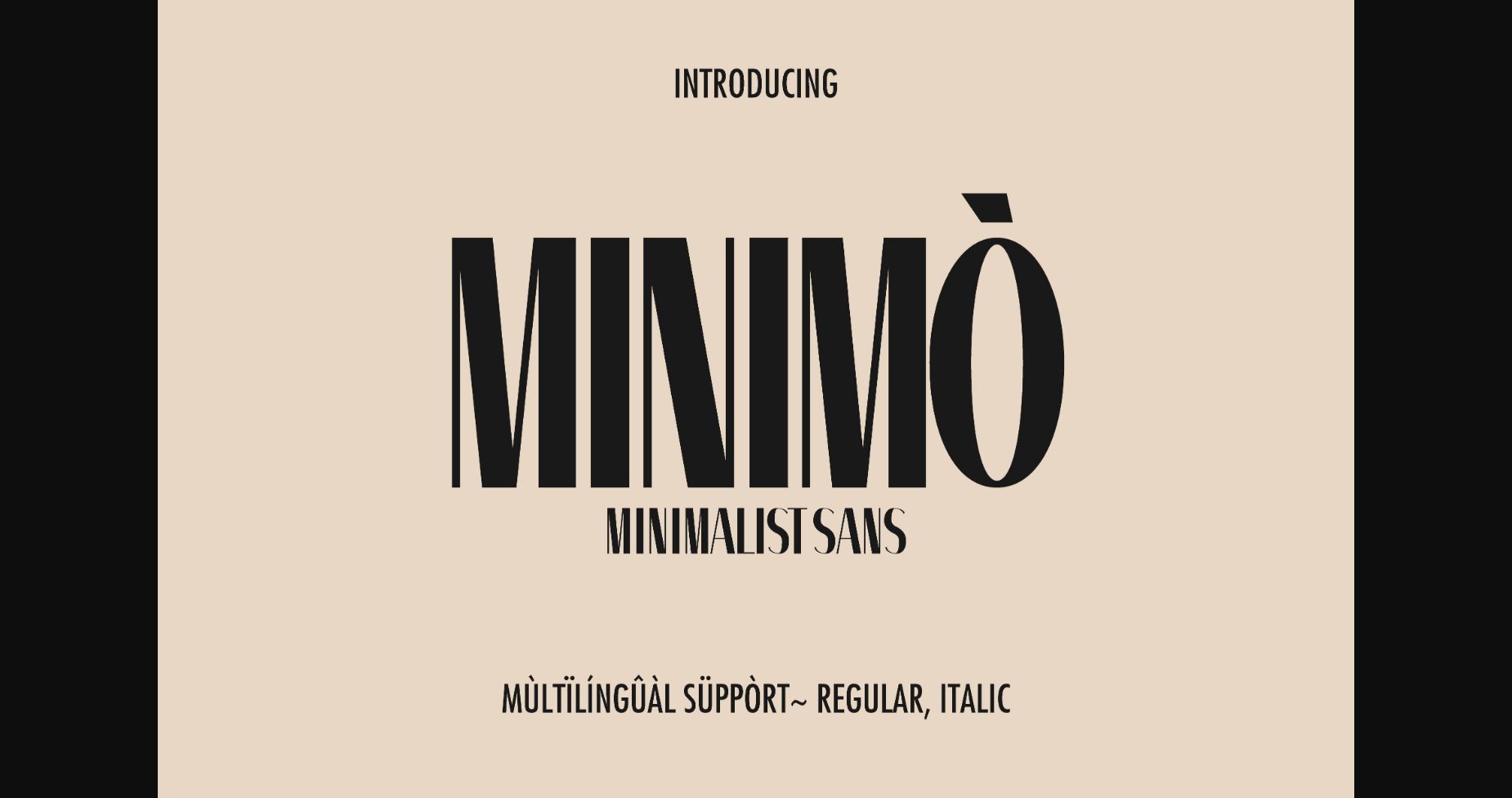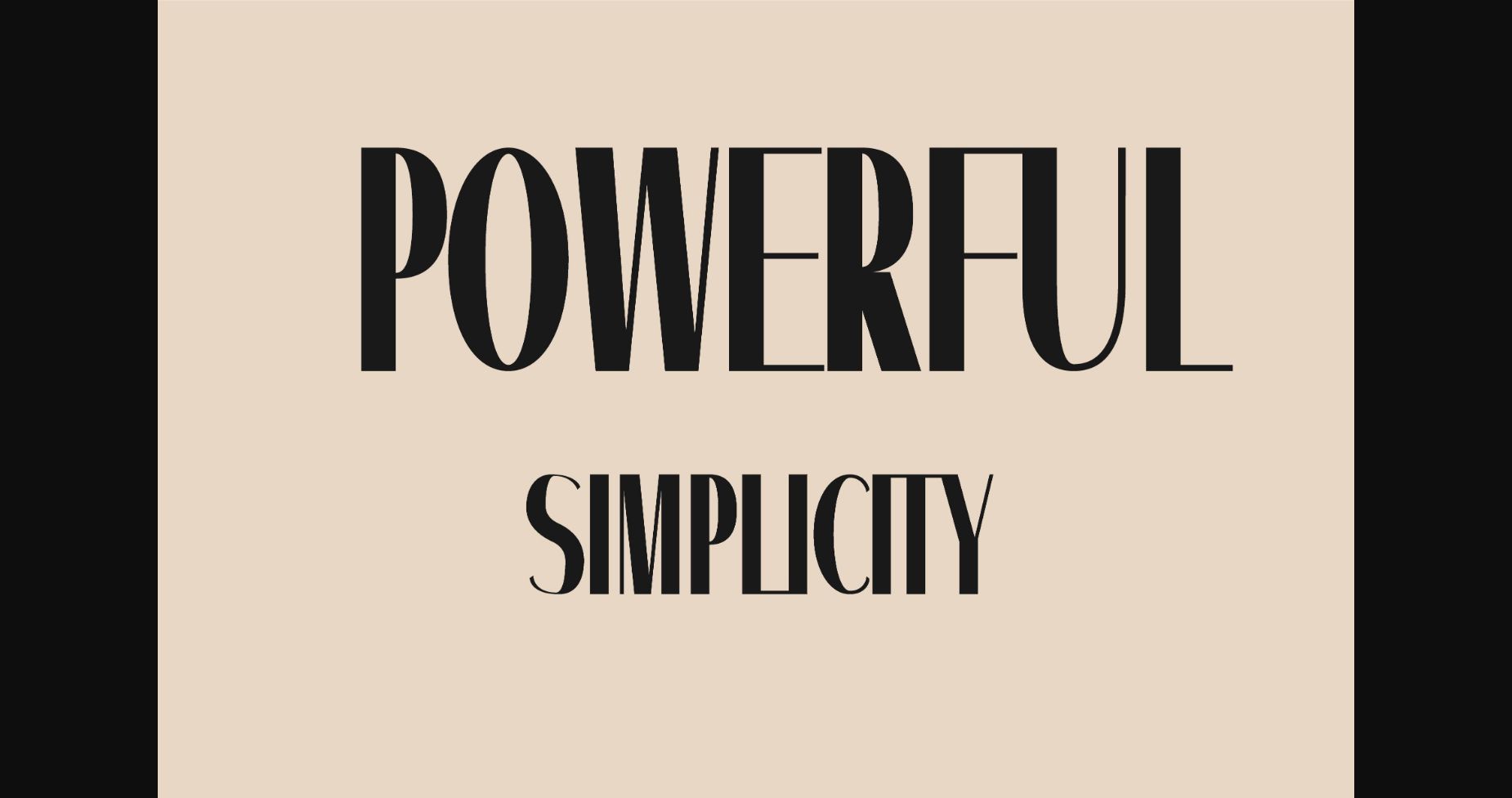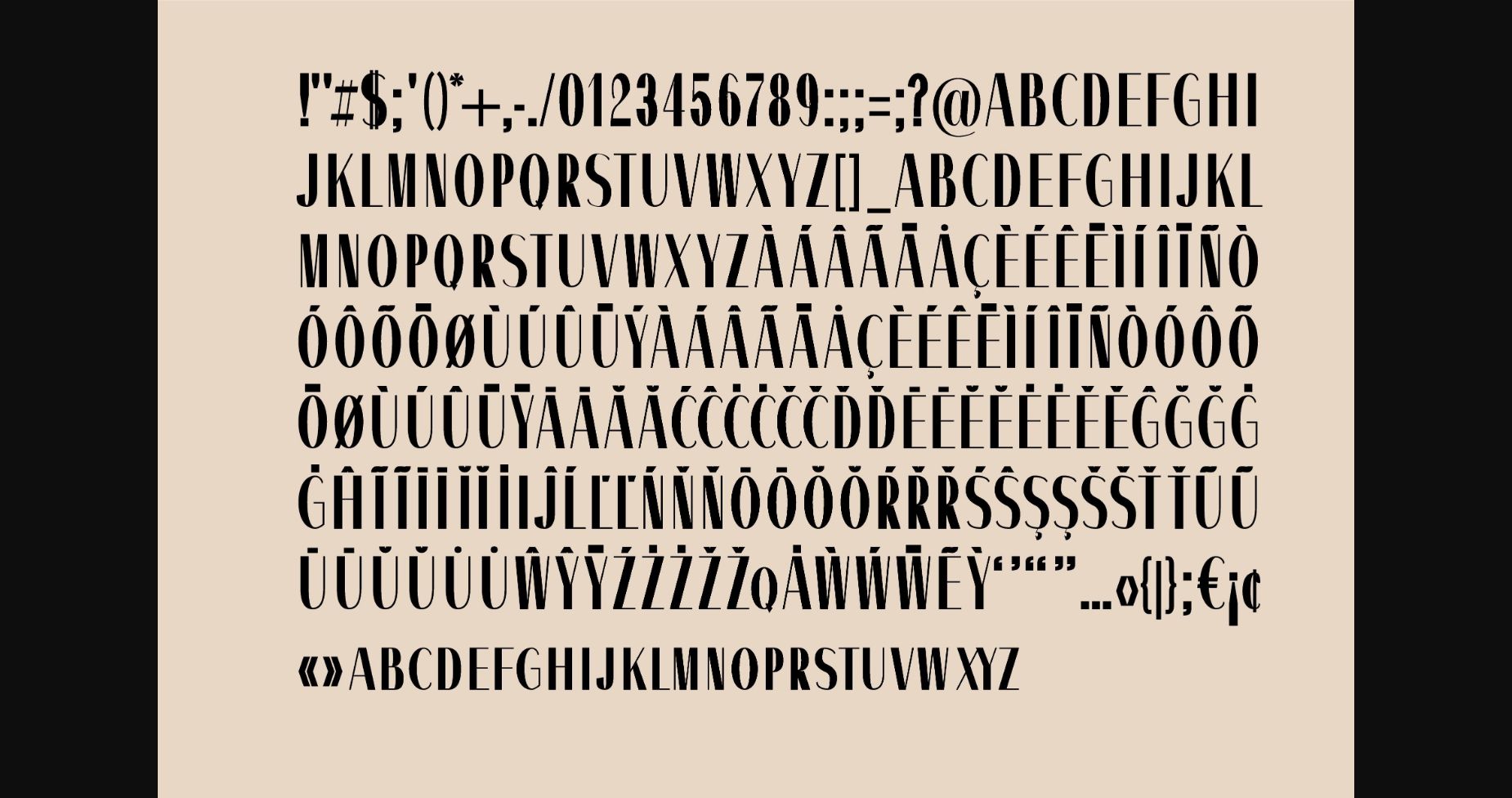
HomeSans Serif FontsMinimò Font Sans Serif Fonts Minimò Font FacebookXPinterestWhatsApp 1 of 5 ... Minimò Font Poster 2... Minimò Font Poster 3... Minimò Font Poster 4... Minimò Font Poster 5... About Minimò Font Minimò is a minimalist and simple sans serif font. Fall in love with its incredibly versatile style and use it to create spectacular designs! DOWNLOAD NOW People also explored Suki Yaki Font Xandria Font West Cousin Font Kawaii Smile Font Mockup Brand Logo Coffe Hearts Handmade Font Standka Font Beauty Gadish Font Halfmoon Font 433 0 TagsMinimòMinimò Font Previous articleSwizzer FontNext articleMynalos Font LEAVE A REPLY Cancel reply Comment: Please enter your comment! Name:* Please enter your name here Email:* You have entered an incorrect email address! Please enter your email address here Website: Save my name, email, and website in this browser for the next time I comment. Personal Use Free Marthissa Personal Use Free Read more about this font Rosebirth Personal Use Free Read more about this font Rookie Mastering Personal Use Free Read more about this font Aragon Personal Use Free Read more about this font BLOG Where to Buy American Fonts Online in 2024 Where to Buy American Fonts Online: The Ultimate Guide for 2024 Looking for the perfect American font to elevate your design projects? You're in the... To increase your work productivity, choose the most readable fonts. 5 Fonts That Will Dominate Design Trends in 2026 The 10 Best Handwriting Fonts to Add Personality to Your Designs